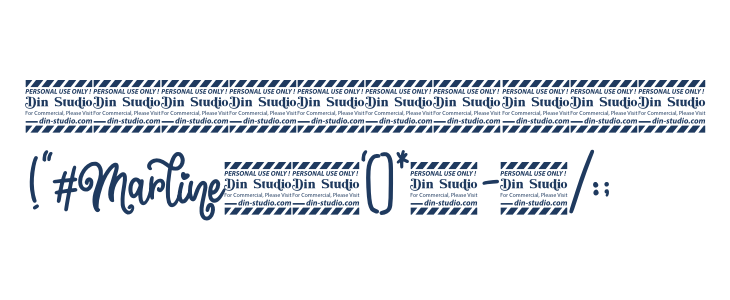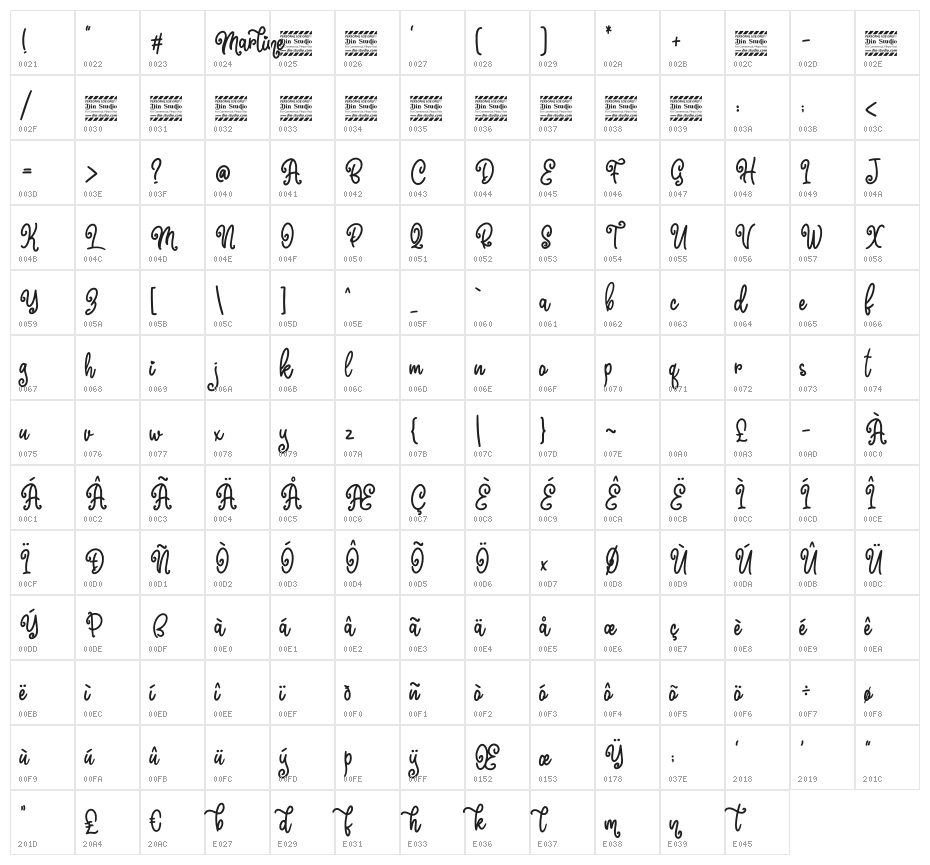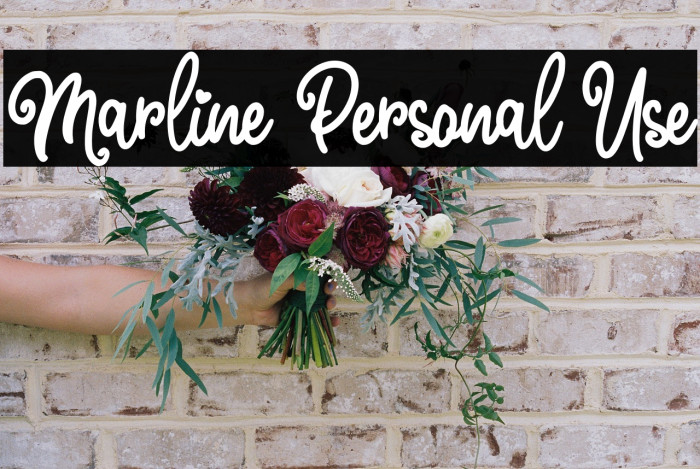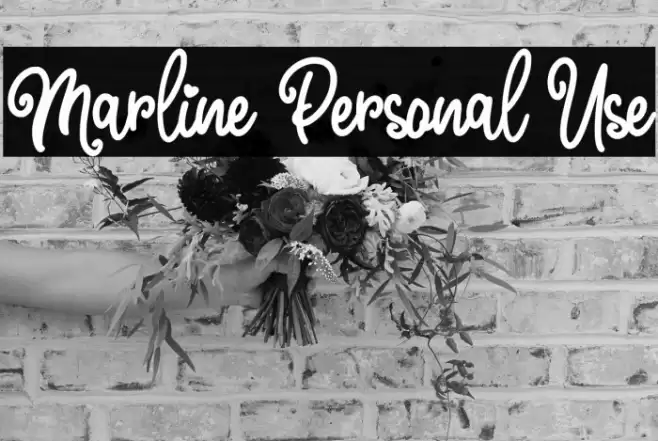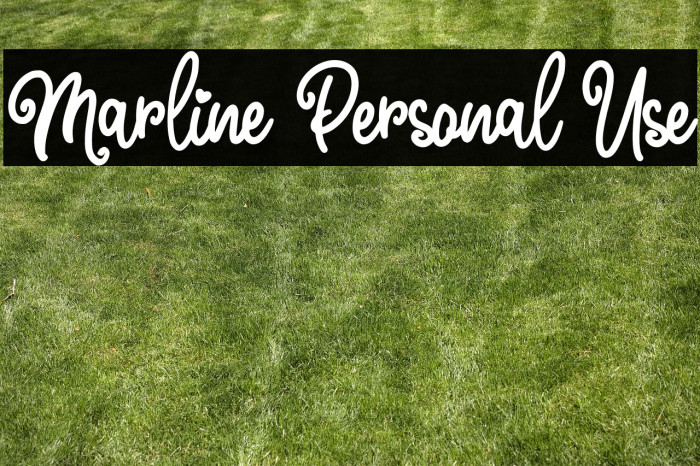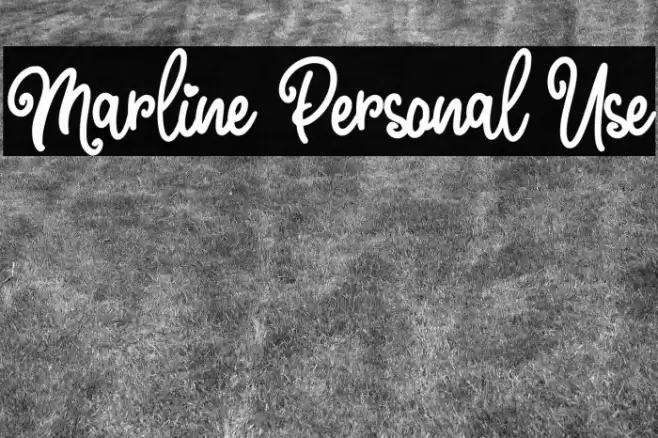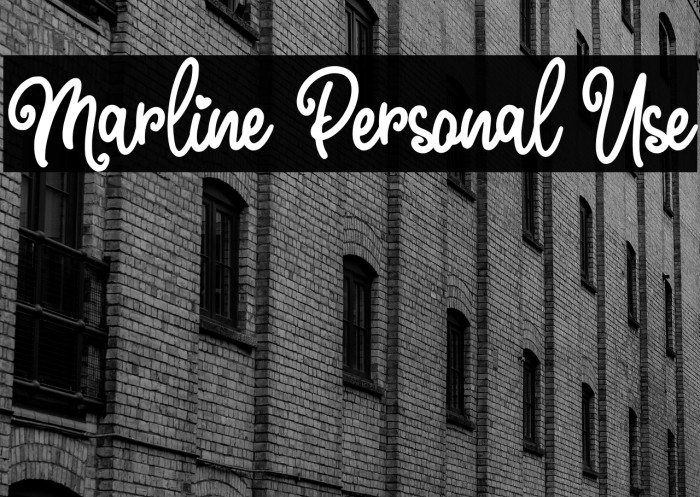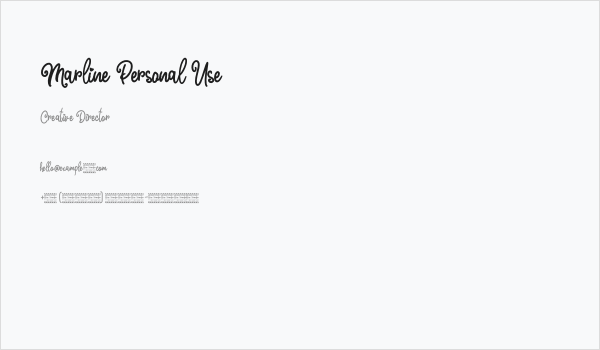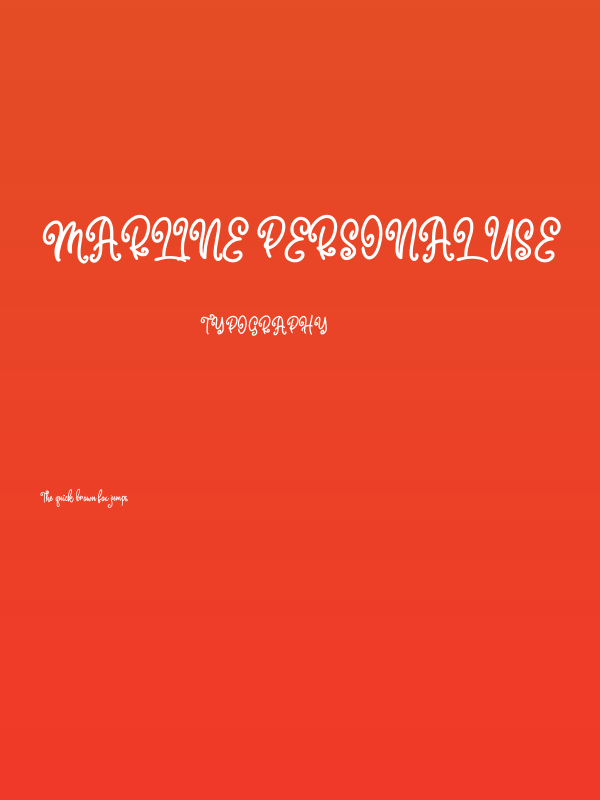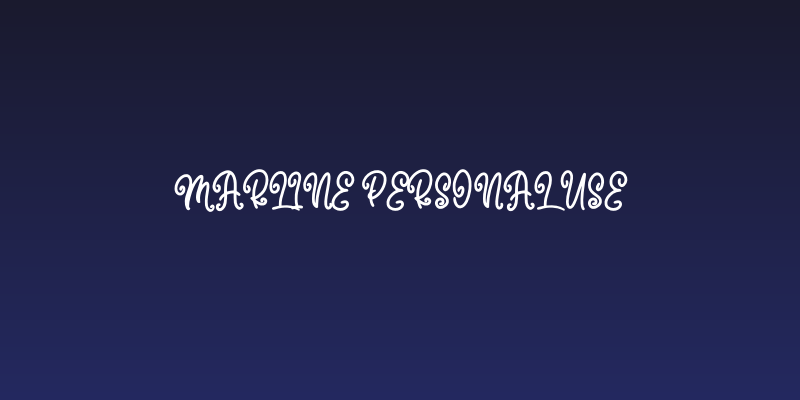
Marline Personal Use Font
Marline Personal Use Description
This font features a playful and whimsical script style with a handwritten appearance. The letters are characterized by their flowing, cursive forms and decorative swirls, giving it a lively and dynamic feel. The uppercase letters are bold and prominent, while the lowercase letters maintain a consistent fluidity. The font includes a full set of uppercase and lowercase letters, numbers, and a selection of special characters. Its unique style makes it suitable for creative and artistic projects, adding a personal touch to any design.
| Proposed Projects | Ideal for greeting cards, invitations, branding, and creative projects that require a personal touch. |